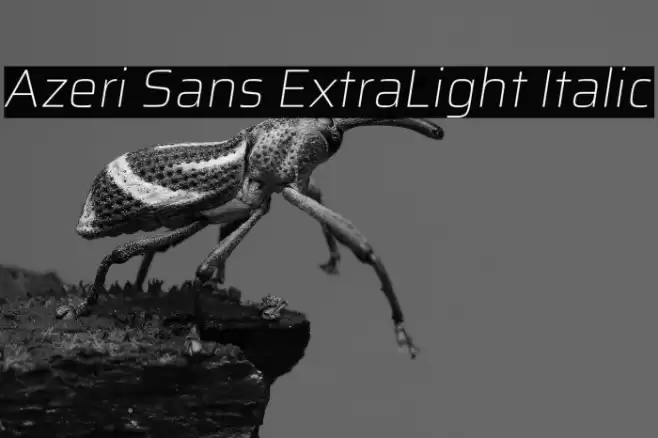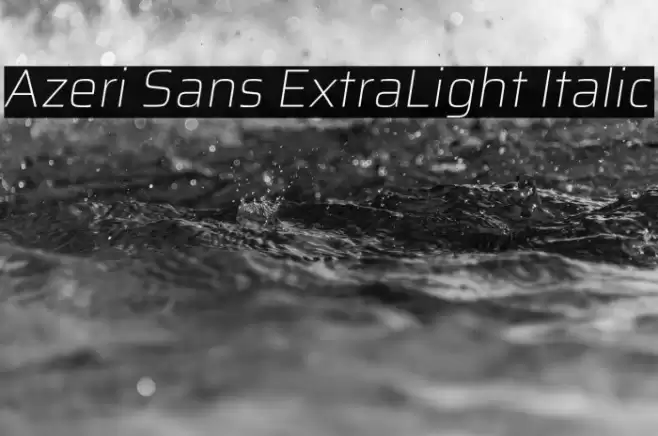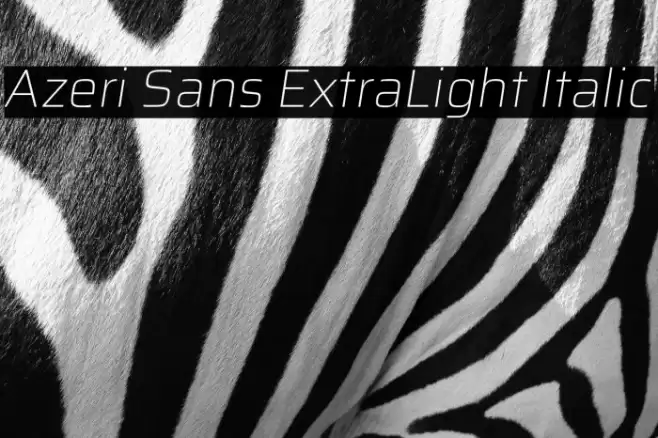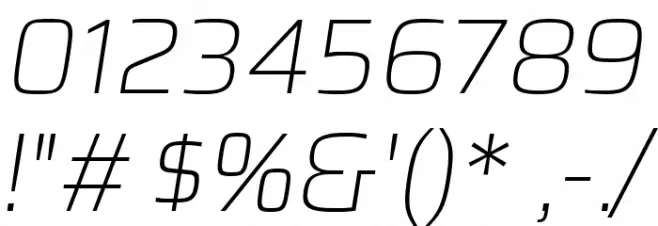
Azeri Sans ExtraLight Italic Font
Azeri Sans ExtraLight Italic Description
This font features a sleek and modern design with a sans-serif style. The characters are elongated and slightly condensed, giving them a streamlined appearance. The strokes are consistently thin, contributing to an overall light and airy feel. The italic slant adds a dynamic and forward-moving energy, making it suitable for contemporary and innovative design projects. The font maintains a clean and uncluttered look, with minimal contrast in stroke thickness, ensuring readability even at smaller sizes. It is versatile and can be used in a variety of contexts where a modern and sophisticated aesthetic is desired.
A sleek, modern sans-serif font with an italic slant and thin strokes from Sans Serif fonts.
- Proposed Projects: Ideal for tech branding, modern advertising, sleek editorial layouts, and innovative web design.